I think gilroy big 5 is a keyword many people search today. That is why I decided to understand it on my own. In this article I will explain gilroy big 5 in very easy words. I will share my personal experience so it feels real and helpful.
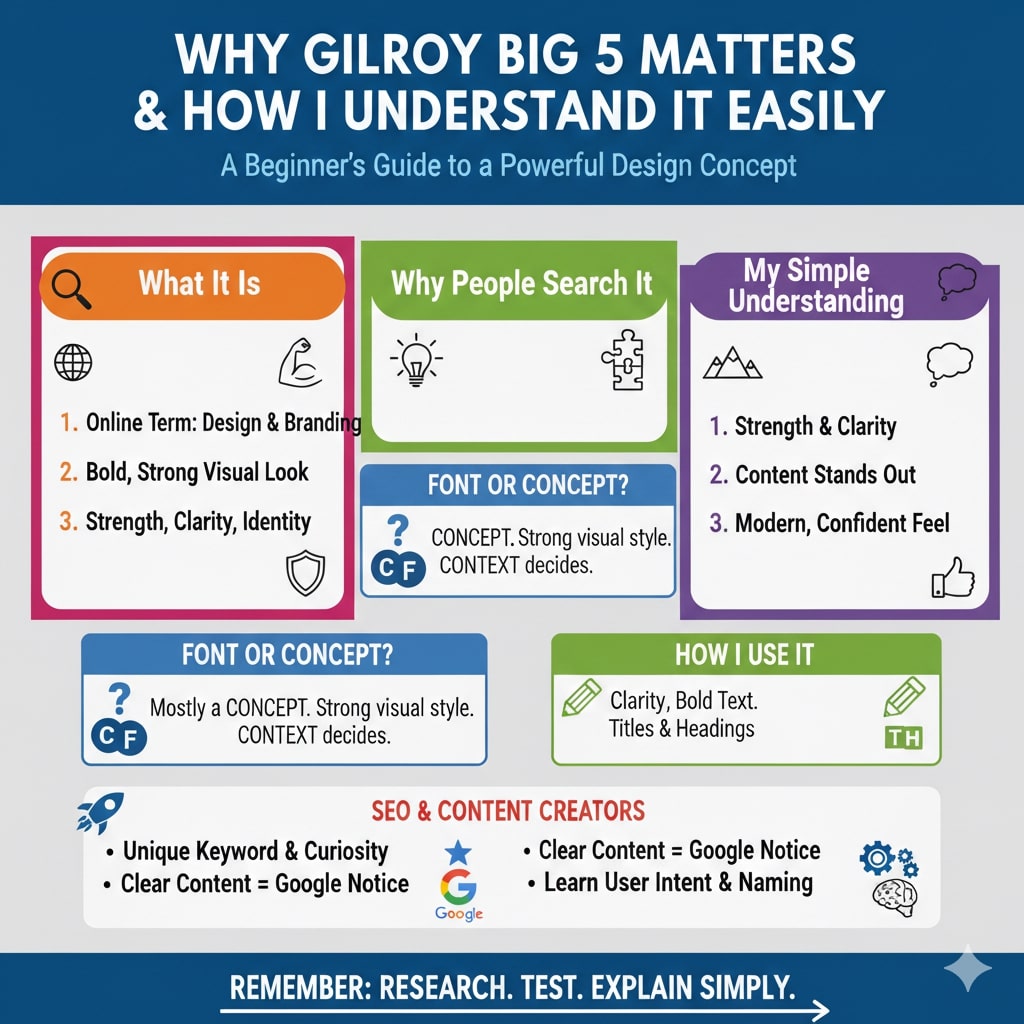
What Is Gilroy Big 5
Gilroy big 5 is a term people use online. It is often connected with design style and branding. Some people use it to describe a bold and strong visual look. I learned that this phrase is not random. It is used to show strength, clarity and identity. That is why many designers like it. The meaning depends on how people use it.
Why People Search Gilroy Big 5
People search gilroy big 5 because they want clarity. They want to know if it is a font style. They want to know if it is a design concept. I searched for it for the same reason. I wanted a simple answer. I wanted to know if it fits my work. This keyword creates curiosity. That is why it gets attention.
My First Experience With Gilroy Big 5
I tried to find a simple explanation. So I tested it myself. I looked at how people were using it. I saw it was about bold appearance and clean design. That experience helped me understand user intent.
Understanding It In Simple Words
In simple words gilroy big 5 represents strength and clarity. People use it when they want content to stand out. It gives a modern and confident feel. If someone wants text to look bold and clean they use this concept. This is how I understand it.
Is Gilroy Big 5 A Font Or A Concept
Sometimes people think it is a font. Sometimes people use it as a concept. In my view it is more of a concept. It represents a strong visual style. Context decides its meaning.
How I Use Gilroy Big 5 Idea
I use this idea when I want clarity. I use it when I want bold text. This concept helps. It works well for titles and headings.
Things You Should Remember
If you see a new term, do research. Test it. Explain it simply. This approach always works.
FAQs
What does gilroy big 5 mean?
It is a term used to describe a strong and bold design idea.
Is gilroy big 5 a font?
It is mostly used as a concept, not a font.
Is it useful for beginners?
Yes, beginners can learn naming and design intent.
Conclusion
I think gilroy big 5 is a keyword that confuses many people. After learning and testing I understood it clearly. It represents strength, clarity and modern style. Its meaning depends on use. It is popular because it sounds bold and unique. This article explained everything in easy words. It solved confusion. It shared real experience.